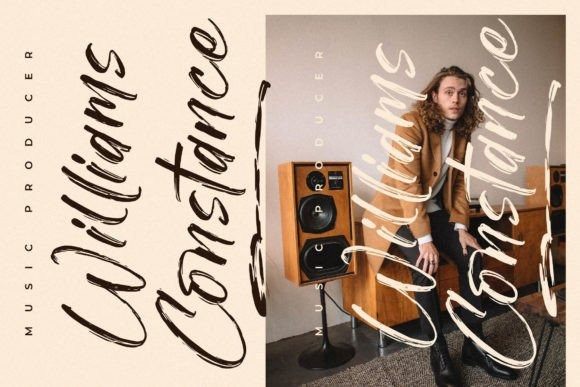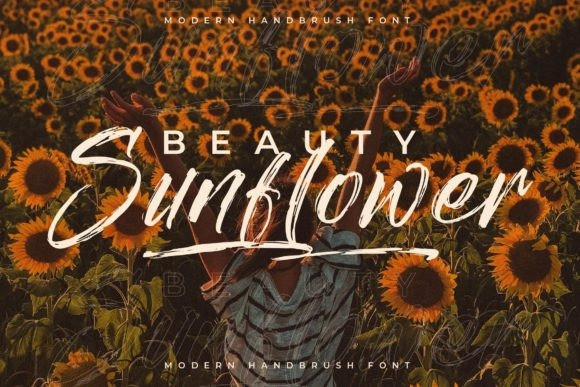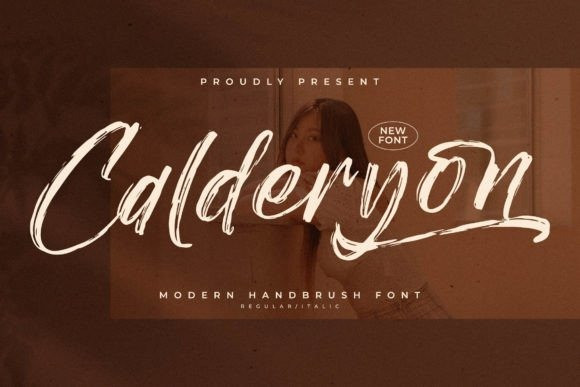
Calderyon Brush Font
Calderyon Brush Font– Modern Handbrush Font , from Glorytype Studio, suitable for any projects such as: logos, branding projects, homeware designs, product packaging, mugs, quotes, posters, shopping bags, t-shirts, book covers, name card, invitation cards, greeting cards, label, photography, watermark, special events, and all your other lovely projects that need a beautiful script taste.